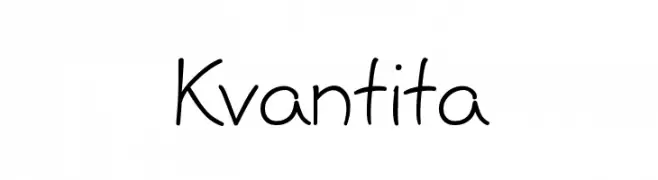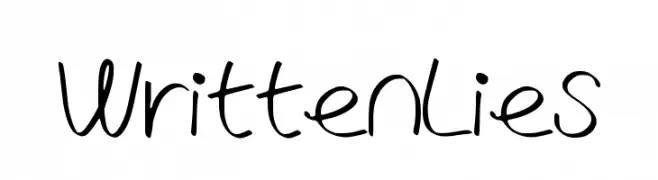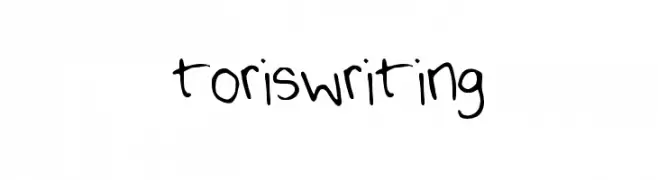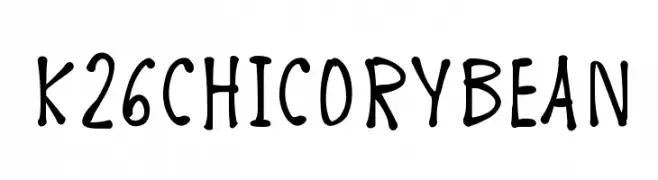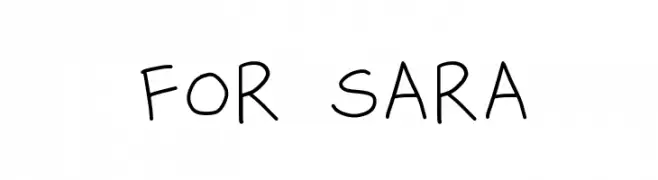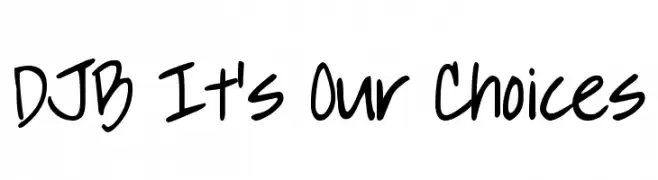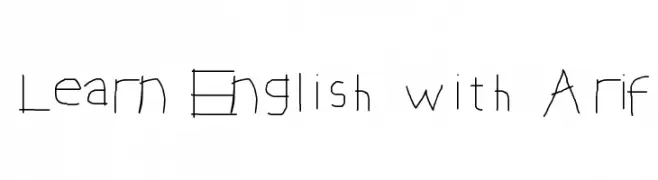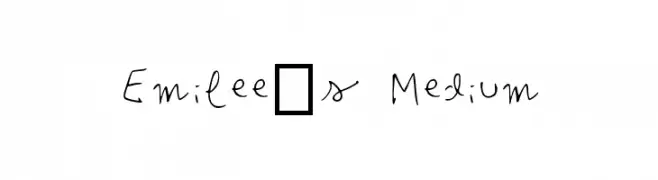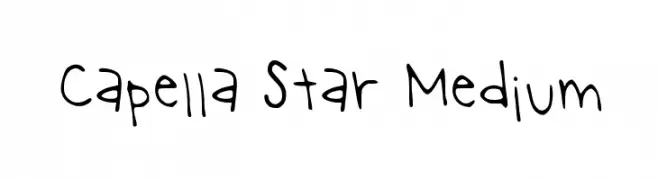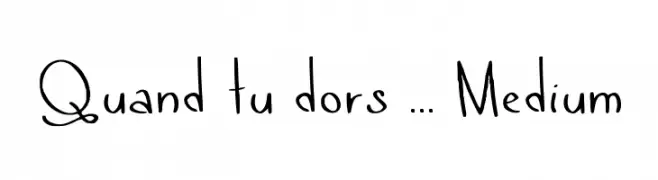
( Fonts by Vít Čondák )
A playful, casual handwritten font with smooth, rounded lines.
( Fonts by KB3Teach )
A playful, handwritten font with a casual and friendly style.
( Fonts by Geronimo )
A playful, handwritten font with a casual and friendly style.
( Fonts by Darcy Baldwin )
A playful, casual handwritten font with a lively and informal style.
( Fonts by Art Martinez )
A playful, handwritten font with irregular, marker-like strokes.
( Fonts by Darcy Baldwin {fontography} )
A playful, handwritten font with thin, uneven strokes and a casual style.
( Fonts by /arnaud/ )
A playful, handwritten font with a whimsical and casual style.
( weheartit.com/growlithe )
A playful, handwritten font with irregular strokes and a casual feel.
( Fonts by Karly )
A playful, informal handwritten font with fluid strokes.
A playful, casual handwritten font with smooth, rounded strokes.
( Fonts by Nathanael Cameron )
A playful, handwritten font with rounded, uniform strokes and a casual style.
( Fonts by Blu Aoi )
A playful, handwritten font with irregular strokes and a casual style.
( Fonts by Wahid Sadique Koly )
A bold, handwritten-style font with a casual and personal touch.